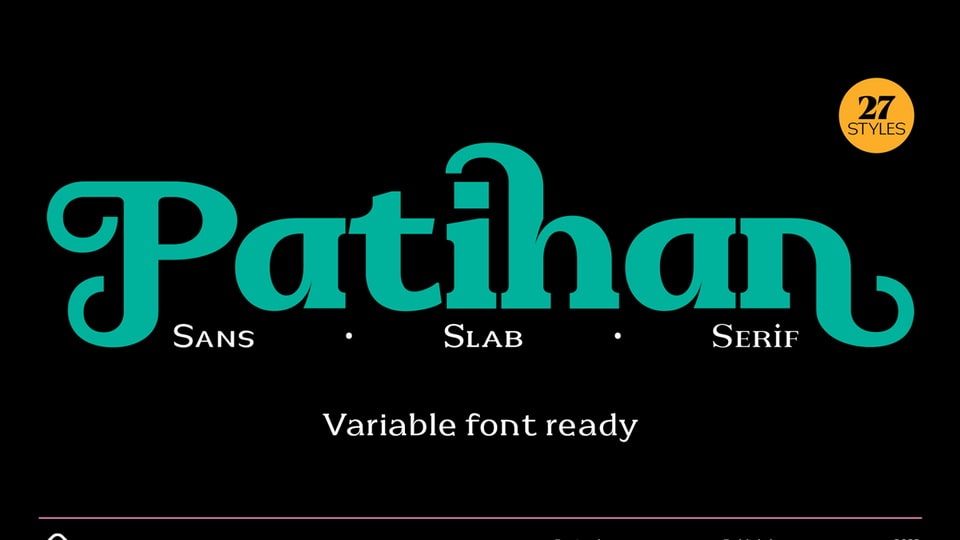
Download Patihan font, a sharp, strong, bold typeface that will bring your designs to life. Patihan font is optimized for readability, making it a great choice for headlines, titles, and any long-form content.
Designer: Jehoo Creative